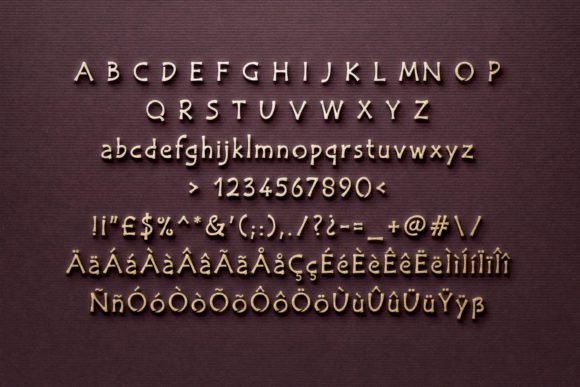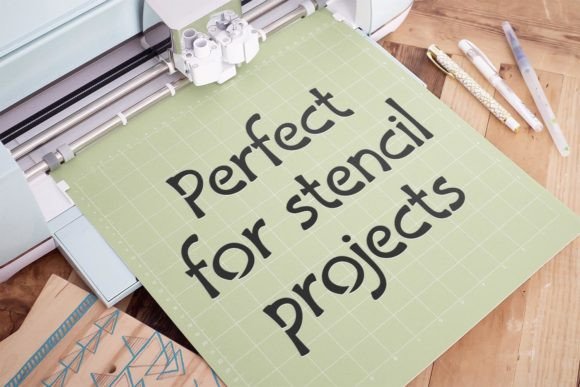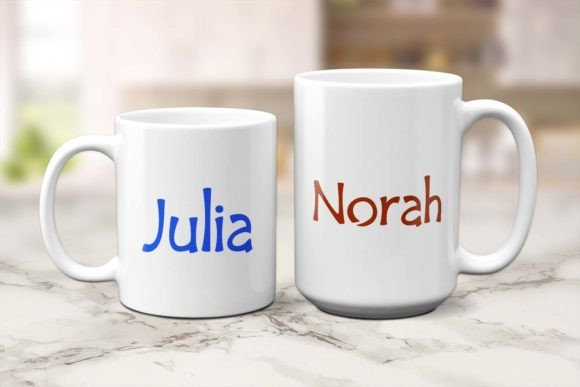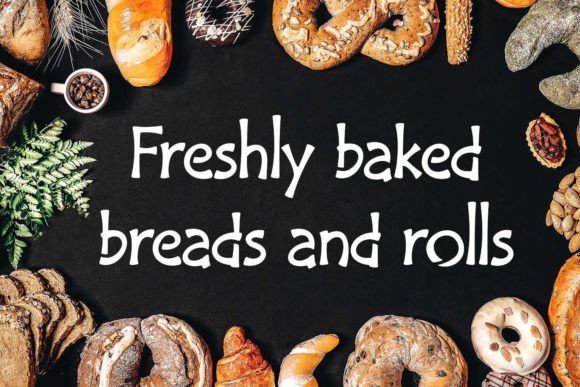
Introduction to Repad Stencil Font
Have you ever found yourself in a creative frenzy, staring at a blank canvas, desperately seeking the perfect font to bring your vision to life? That’s exactly what happened to me when I stumbled upon the Repad Stencil Font. This fun and quirky display font was the missing piece I needed to take my project to the next level.
As a designer, I can attest that finding the right font can make all the difference in a creative project. And Repad Stencil Font is no exception. Its unique design and transparent background make it a perfect choice for laser cutting or engraving, eliminating the need for closed loops on characters. With its high-quality design and free download, it’s an invaluable resource for any designer looking to add a touch of personality to their work.
Whether you’re working on a personal project or a commercial design, Repad Stencil Font is sure to bring a smile to your face and a dash of creativity to your work.
Key Features of Repad Stencil Font
- High-quality design resource ideal for creative projects requiring a unique, stencil font aesthetic.
- Features a transparent background, allowing for seamless integration with backgrounds and designs.
- Available in a single size, making it easy to use across various design applications.
- Designed with a high-resolution, crisp aesthetic, suitable for both digital and print-based creative projects.
- Perfect for designers looking for a free, high-quality stencil font to elevate their design projects.
Honest Review: Repad Stencil Font
As a designer, I’ve had the pleasure of working with various fonts, and I’m excited to share my thoughts on the Repad Stencil Font. This font is a fantastic design resource that can elevate your creative project to the next level.
What works well is the high-quality design of the Repad Stencil Font, which features a unique stencil aesthetic that adds a touch of edginess to any project. The font is also available for free download, making it an excellent option for designers on a budget.
The font comes with a transparent background, which gives designers the flexibility to use it on various backgrounds without any hassle. This feature is particularly useful when working on projects that require a lot of text overlay.
Here are some of the key features that I appreciate about the Repad Stencil Font:
- Unique stencil aesthetic that adds a touch of edginess to any project
- Transparent background for easy text overlay
- Free download, making it an excellent option for designers on a budget
While the Repad Stencil Font is an excellent design resource, there are some limitations to consider:
- Some users may find the font too bold or overpowering
- The font may not be suitable for projects that require a more subtle look
Overall, I’m impressed with the Repad Stencil Font, and I think it’s an excellent addition to any designer’s toolkit. Whether you’re working on a creative project or just need a font that can add some edge to your design, the Repad Stencil Font is definitely worth checking out.
Tips for Getting the Most Out of Repad Stencil Font
To get the most out of Repad Stencil Font, use it on a transparent background to create a striking contrast with your design. You can also experiment with different font sizes and styles to achieve the desired effect.
Repad Stencil Font is a versatile design resource that can be used in a variety of creative projects, including graphic design, digital art, and even tattoo design. Its unique, stencil-like appearance makes it perfect for adding a touch of edginess to your designs.
Alternatives to Repad Stencil Font
1. Arial Stencil Font
The Arial Stencil Font is a great alternative for designers looking for a clean and modern look. It’s ideal for creative projects that require a high-quality, stencil font with a transparent background. It’s available for free download and can be easily integrated into any design resource. When to use: headings, titles, and body text for a modern and edgy feel. Compared to Repad Stencil Font, Arial Stencil Font has a more modern and sleek design, making it suitable for contemporary designs.
Can I modify the Repad Stencil Font for my specific design needs?
Yes, the Repad Stencil Font is a high-quality design resource that can be easily modified to suit your specific design needs. You can adjust the font size, color, and style to fit your project’s requirements. Additionally, you can also use the font in combination with other design elements to create a unique and eye-catching design.